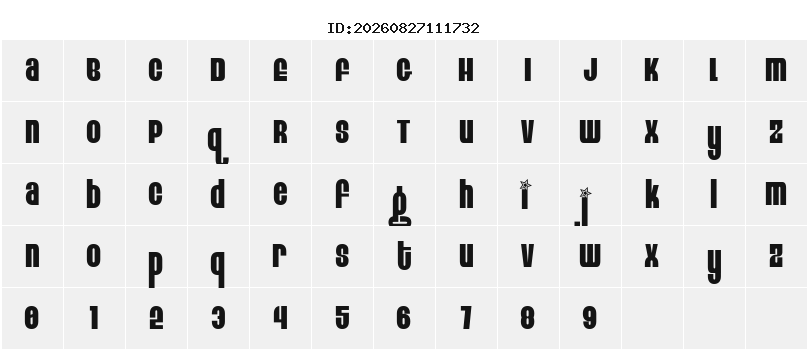
About 262-CAI978.ttf
262-CAI978.ttf is a modern, elegant sans-serif font designed for ultimate readability and visual harmony. Perfect for branding, headlines, web design, and print materials.